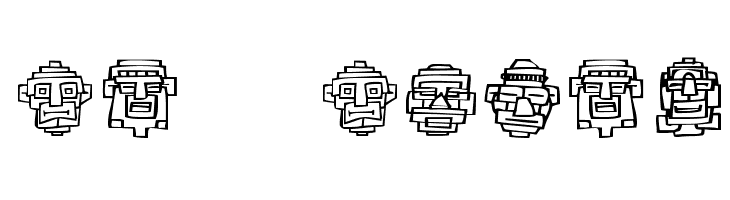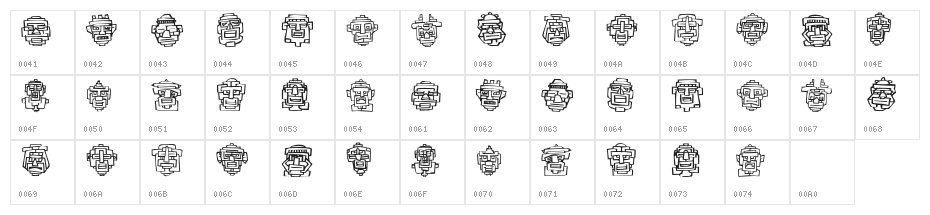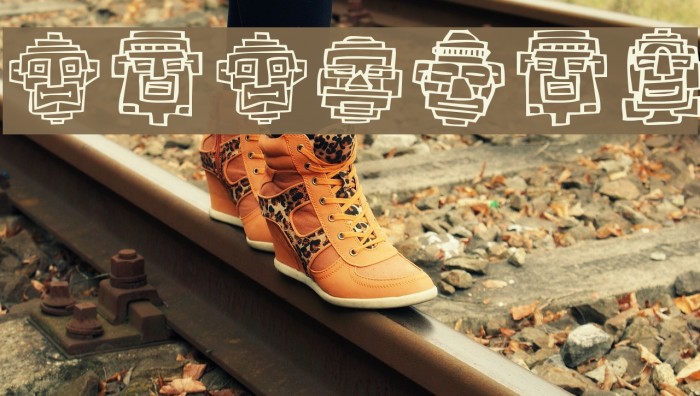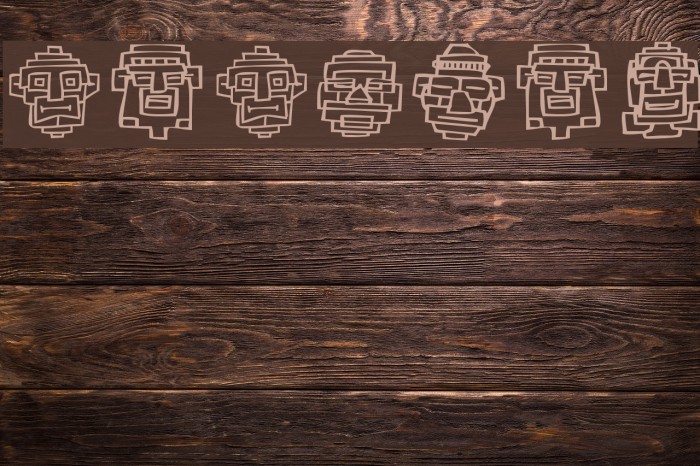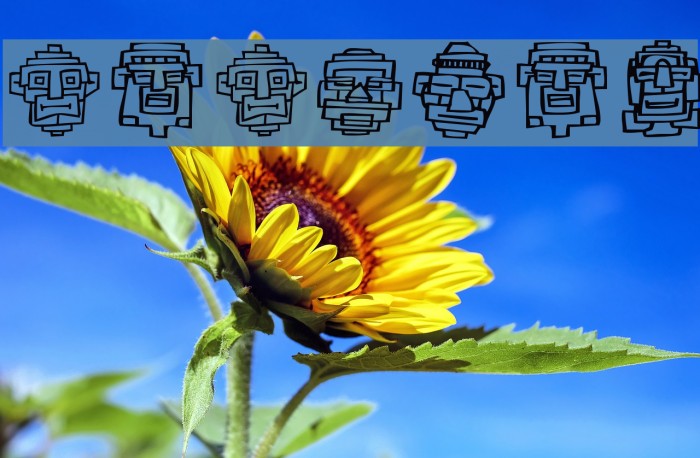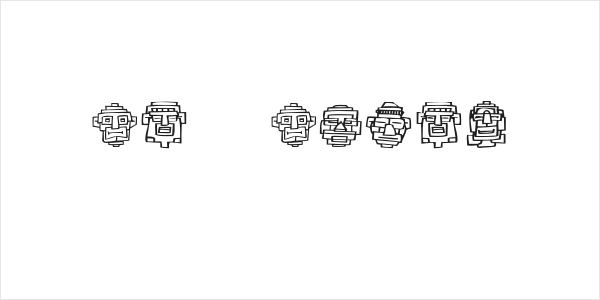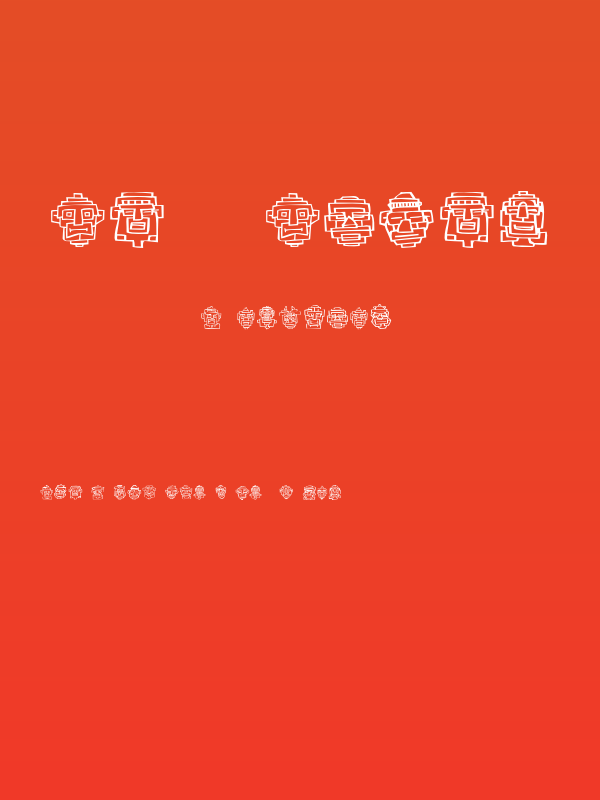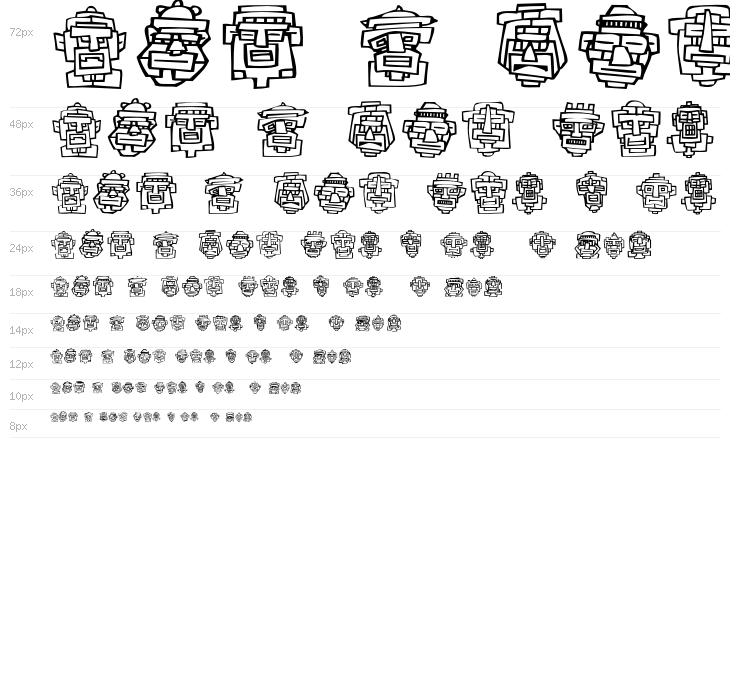
FE-20Faces Font
FE-20Faces Description
A highly decorative and abstract font where each character is represented by a unique, geometric face illustration, featuring bold outlines and intricate, maze-like details. The style is playful and artistic, with each glyph resembling a stylized mask or face, making it visually striking and unconventional.
| Overall Style | Decorative, Abstract, Artistic |
| Use Case | Display, Logos, Posters, Artistic projects |
| Proposed Projects | Posters, album covers, art installations, branding for creative industries, event invitations, editorial illustrations. |